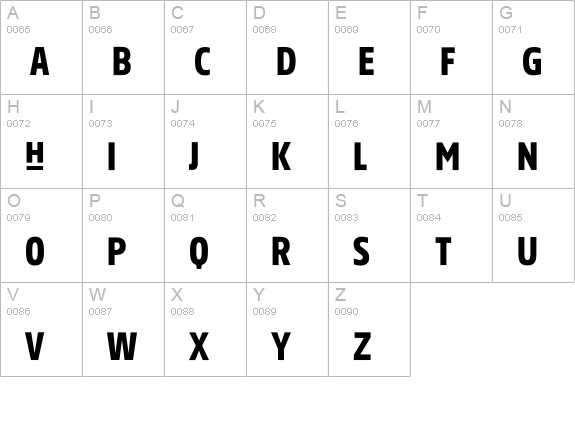
Glasgow1999-Normal Font Details
Glasgow1999-Normal is the standard, neutral variant in the Glasgow1999 typeface family \xE2\x80\x94 well suited to general body text, paragraphs, and standard typographic work.